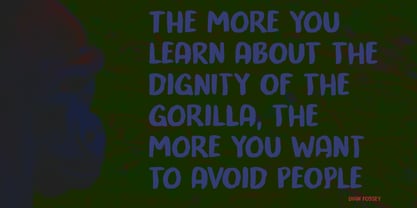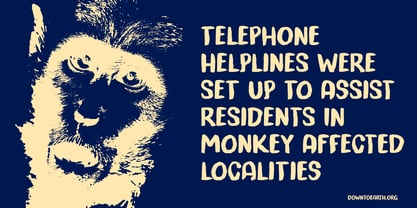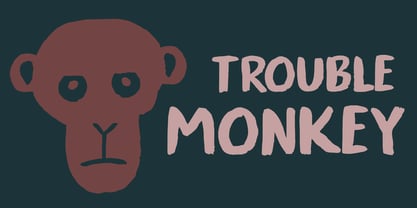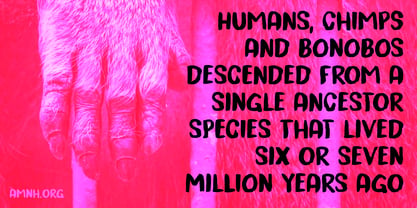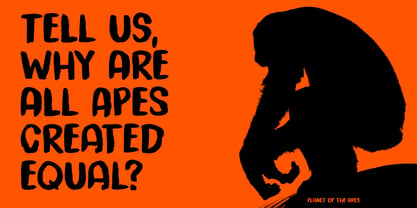
Trouble Monkey Pro
Die Schriftfamilie Trouble Monkey Pro wurde von David Kerkhoff entworfen und von Hanoded veröffentlicht. Trouble Monkey Pro enthält 2 Stile und Familienpaketoptionen. Mehr über diese Familie
I have a little monkey in my house. His name is Boris, he is (almost) 9 years old and he is, well, a trouble making monkey… ;-0 He loves animals and knows just about everything there is to know about them. I hope that one day he’ll study biology or animal sciences, but for now he is (almost) 9 and university is far away.
Trouble Monkey is an all caps headline font. It was made with a brush and Chinese ink and you can use it for everything that needs to catch people’s attention!
Designer: David Kerkhoff
Foundry: Hanoded
Hanoded is run by Dutchman David Kerkhoff. His fonts are a mishmash of styles, as he just creates whatever pops into his head. You will find a lot of brush fonts in his collection, as his favourite tools are brushes and Chinese ink, with cartoon style fonts and script fonts complementing his repertoire. Aside from making fonts, David occasionally guides tours in far-flung places, renovates his '30's house and tries reasoning with his wife and (teenage) kids. Not an easy task!